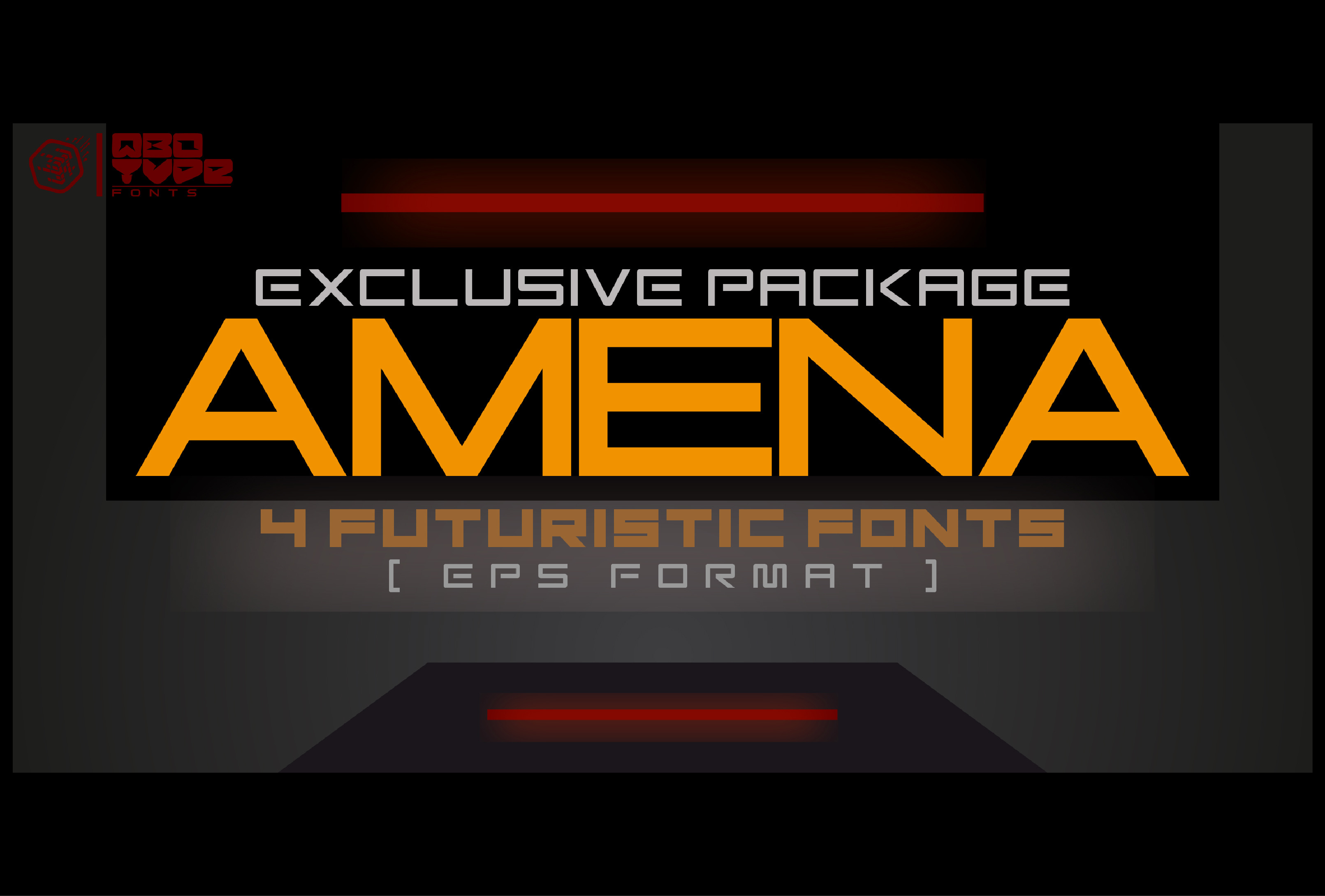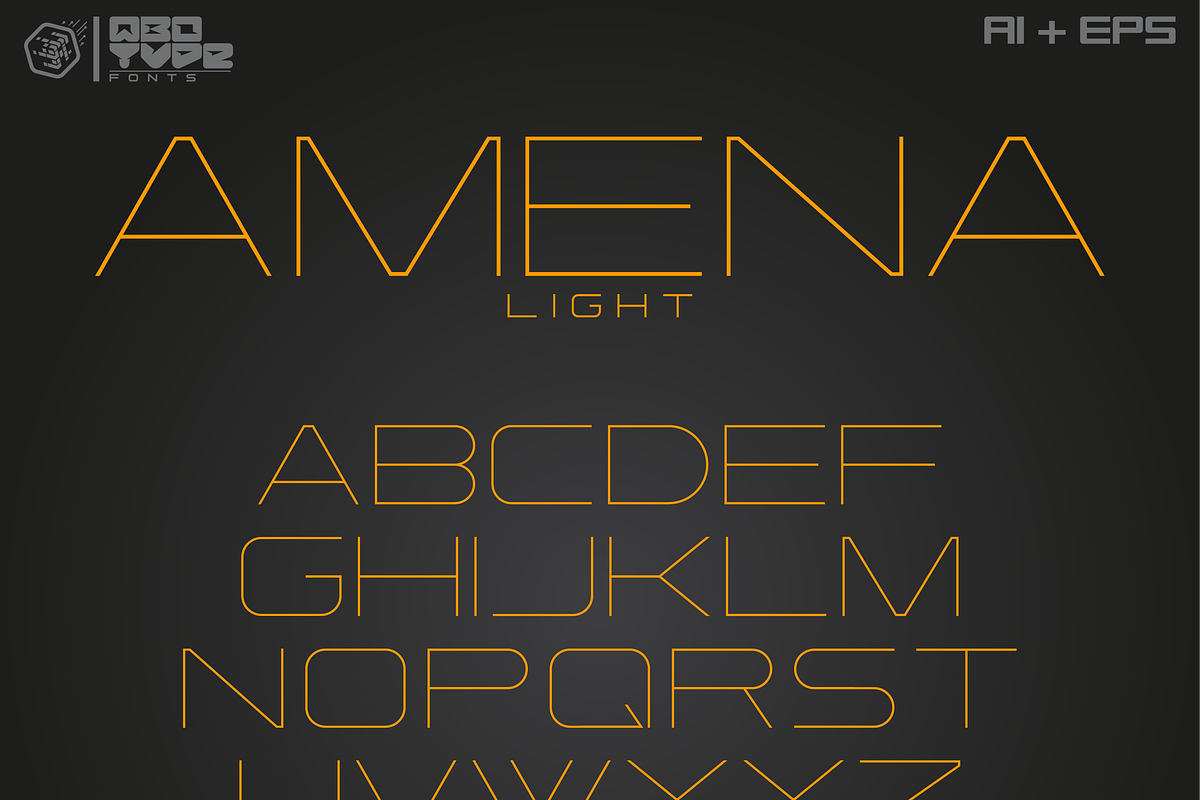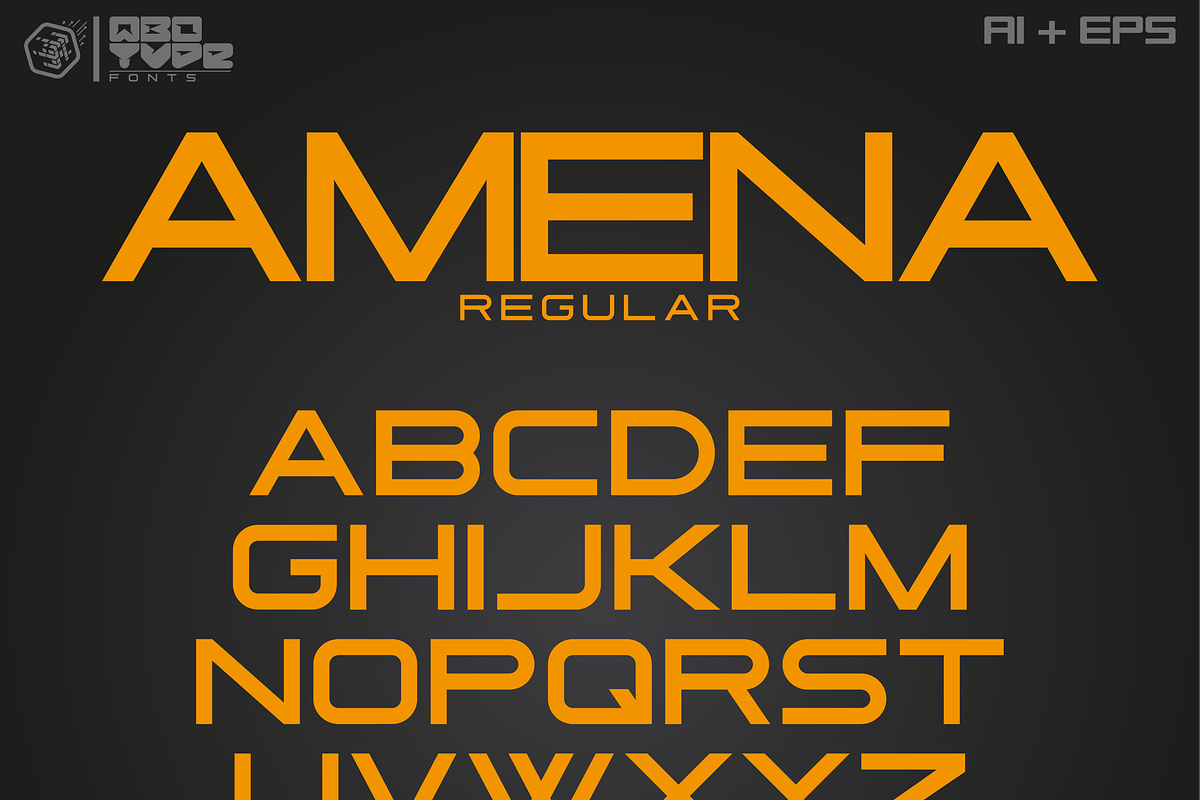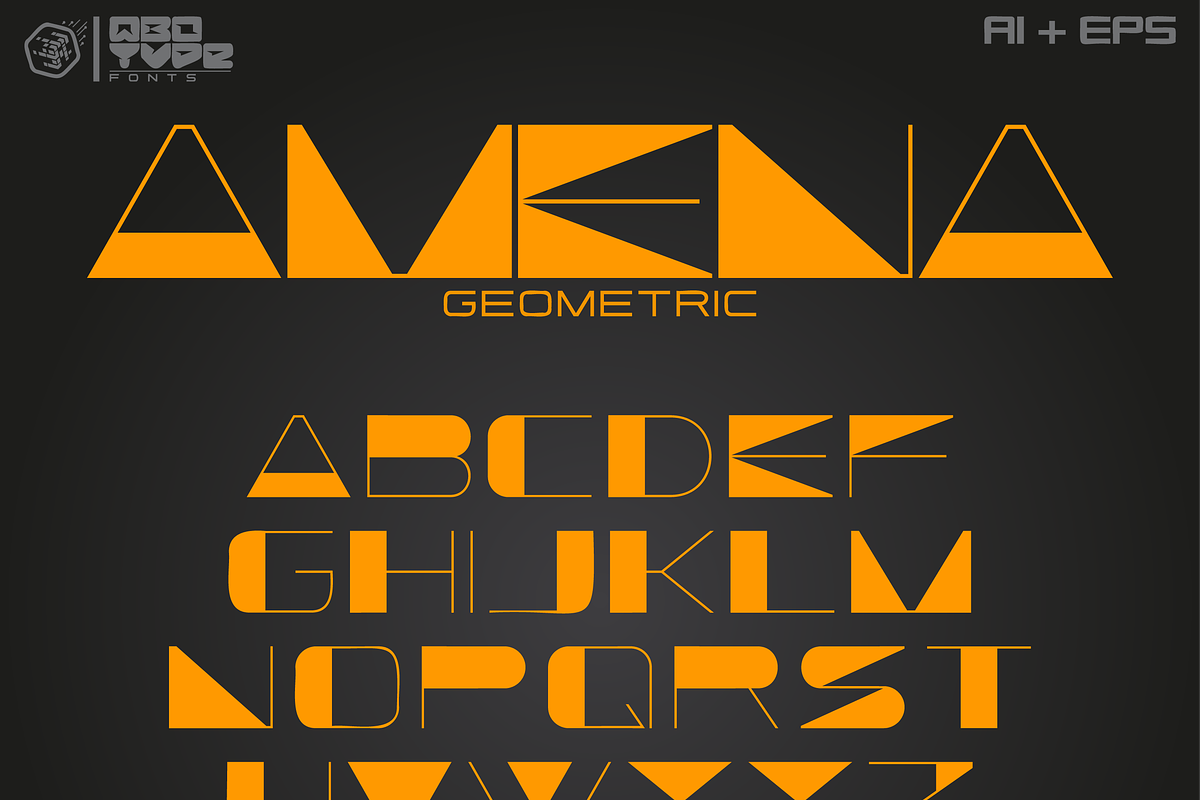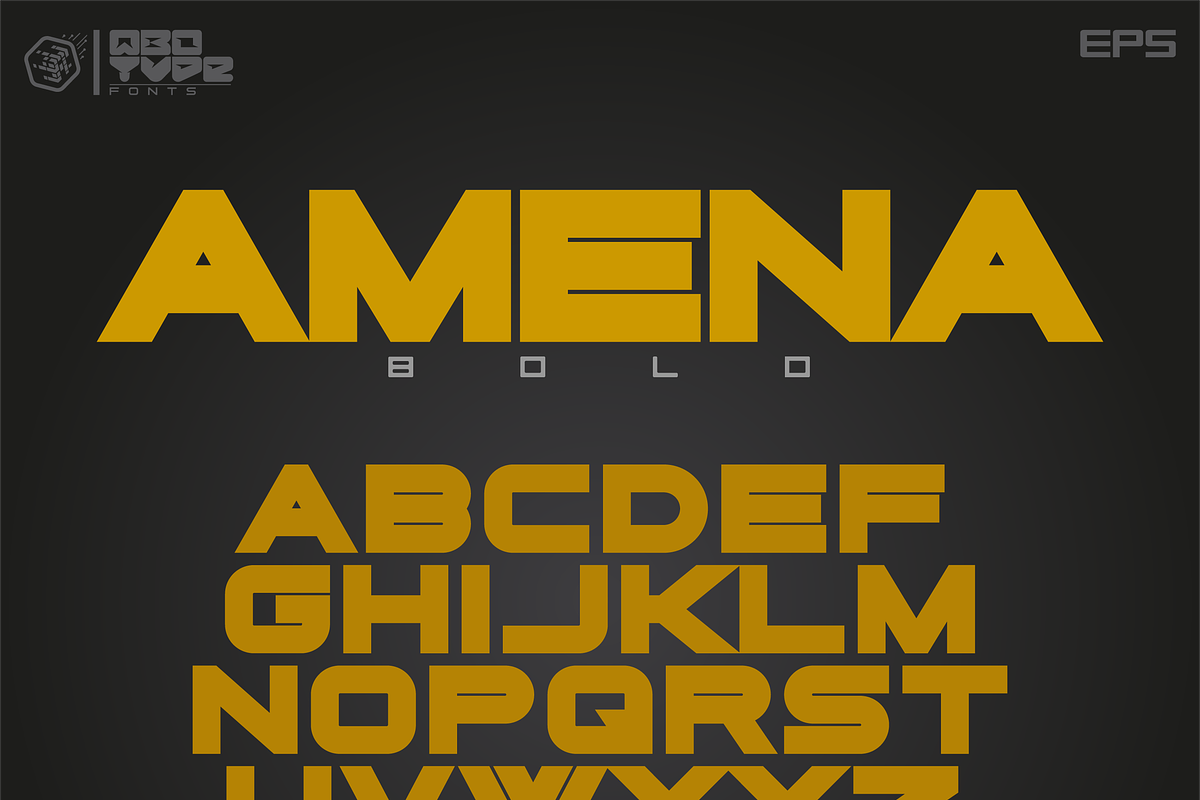
Amena 4 fonts in eps format
Amena font package IncluElevate your designs with this cutting-edge typography. Perfect for sci-fi, tech branding, and minimalist projects.
✅ Style: Geometric & futuristic aesthetic.
✅ Includes: 4 unique styles.